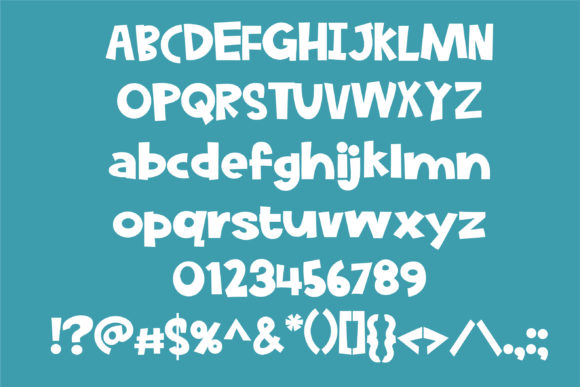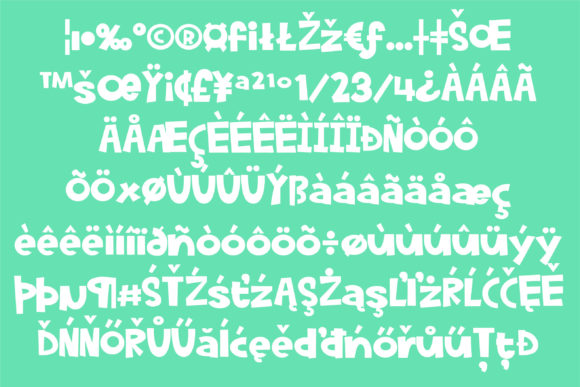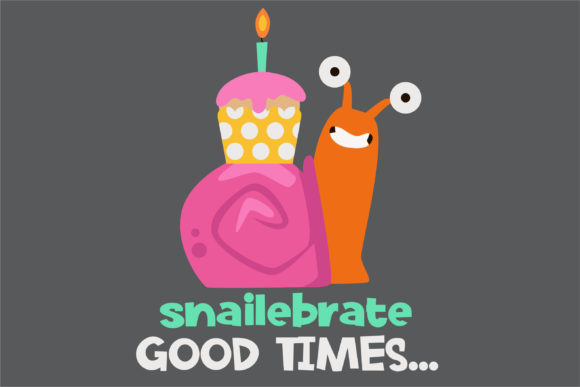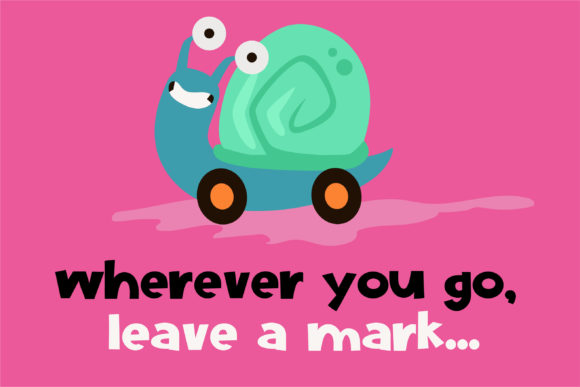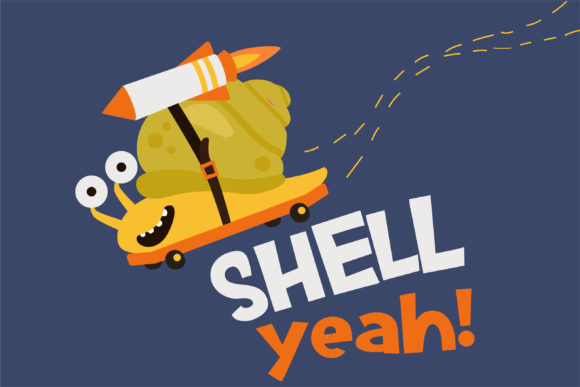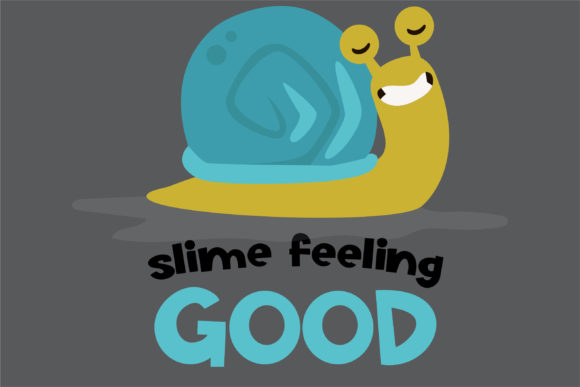
Introducing Generous Font: The Perfect Choice for Youthful and Whimsical Designs
Are you a designer or crafter looking for a font that embodies playfulness and authenticity? Look no further than Generous Font, a friendly display font that is perfect for children activities, school projects, and any design that requires a youthful and whimsical touch.
What is Generous Font?
Generous Font is a unique and adaptable display font that is designed to bring a sense of fun and playfulness to any design. Its youthful and whimsical style makes it perfect for designs that require a lighthearted and carefree approach. Whether you’re working on a children’s activity book, a school project, or a craft design, Generous Font is the perfect choice.
Key Features of Generous Font
- Youthful and Whimsical Style: Generous Font has a playful and carefree style that is perfect for designs that require a youthful and whimsical touch.
- Adaptable Design: The font is designed to be adaptable, making it perfect for a wide range of design applications, from children’s activity books to school projects and craft designs.
- Playfulness and Authenticity: Generous Font embodies playfulness and authenticity, making it perfect for designs that require a genuine and fun approach.
Generous Font is perfect for designers and crafters who are looking for a font that can add a touch of playfulness and whimsy to their designs. Whether you’re working on a DIY project, a craft design, or a professional design project, Generous Font is a great choice.
- Use it for Headings: Generous Font is perfect for headings and titles. Use it to add a touch of playfulness and whimsy to your design.
- Pair it with Other Fonts: Generous Font can be paired with other fonts to create a unique and interesting design.
- Experiment with Different Sizes: Generous Font looks great in a variety of sizes. Experiment with different sizes to find the one that works best for your design.
Benefits of Using Generous Font
There are many benefits to using Generous Font in your designs. Here are a few:
- Adds a Touch of Playfulness: Generous Font adds a touch of playfulness and whimsy to any design.
- Perfect for Children’s Designs: The font is perfect for children’s activity books, school projects, and other designs that require a youthful and whimsical approach.
In conclusion, Generous Font is a friendly display font that is perfect for designers and crafters who are looking for a font that embodies playfulness and authenticity. Its youthful and whimsical style makes it perfect for children’s activity books, school projects, and any design that requires a lighthearted and carefree approach. With its adaptable design and easy-to-use features, Generous Font is a great choice for any design project.